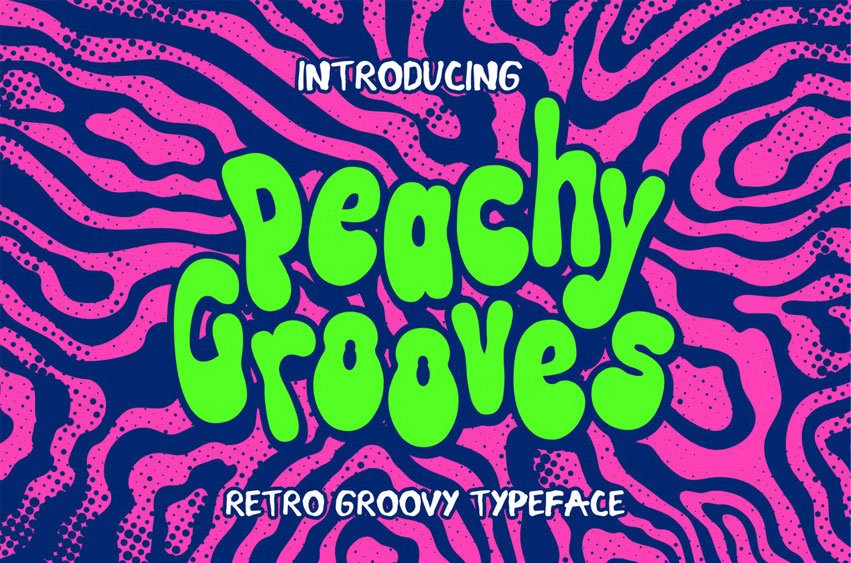
Peachy Grooves Font is a bold retro display font bursting with funky curves and playful character.
Perfect for posters, branding, merch, and vibrant creative projects, this groovy typeface brings a fun 70s-inspired vibe that instantly stands out. Ideal for designers seeking eye-catching, colorful, and energetic typography for modern retro aesthetics.